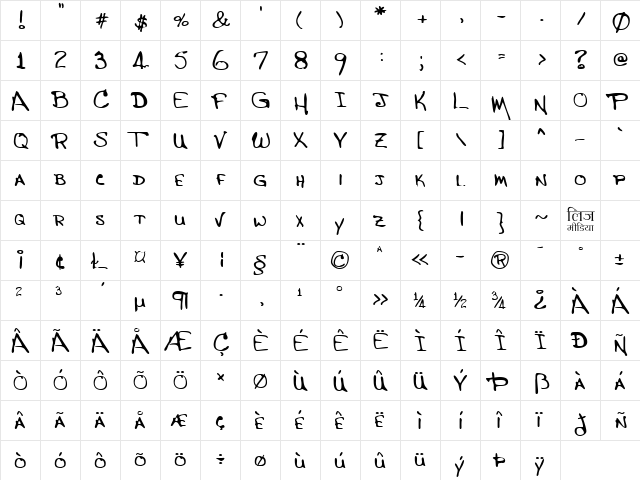
LEHN139 Regular Font Preview
LEHN139 Regular
LEHN139 Regular Font Details
Design Context for LEHN139 Typeface
LEHN139 is a composed and adaptable typeface that performs quietly and consistently across a wide range of design contexts.